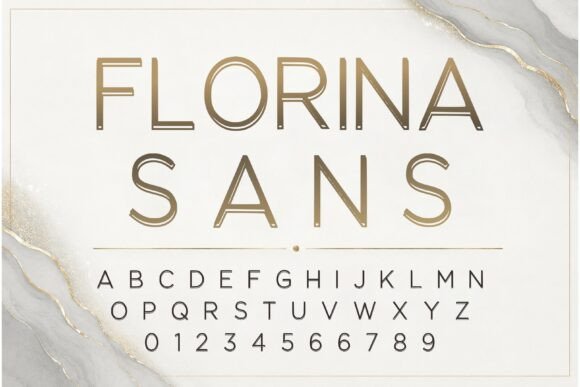
Florina Sans: A Display Font That Elevates Digital Branding
Last week, I was finalizing the hero section of a boutique coaching website—clean layout, soft gradient background, and a single powerful headline inviting visitors to “Begin Your Clarity Journey.” The default system font felt safe but forgettable. So I dropped in Florina Sans. Instantly, the tone shifted: confident, intentional, quietly luxurious—not flashy, but unmistakably considered.
That’s the quiet power of a well-chosen display font. Florina Sans isn’t built for paragraphs or navigation menus. It’s designed for moments that need presence: headlines, banners, call-to-action overlays, logo lockups, and hero statements where typography carries emotional weight alongside meaning.
Visually, Florina Sans balances Art Deco elegance with contemporary restraint. Its geometric structure gives it clarity at large sizes—think clean terminals, even stroke contrast, and subtly flared terminals on letters like C and S. But unlike many decorative display fonts, it avoids ornamentation for its own sake. There’s no excessive swash, no forced whimsy—just refined proportions, generous x-height, and spacing that breathes comfortably on screen.
In practice, I tested it across real scenarios:
- Hero section on desktop: At 64px with letter-spacing of 1.2px, Florina Sans held its shape beautifully over a subtle image overlay—no blurring, no hint of pixelation, even with light text on a textured background.
- Mobile landing page headline: Scaled down to 42px with tighter tracking (0.8px), it remained legible and impactful—not cramped, not fragile. The uppercase variant especially shone in short, bold declarations like “Your Next Chapter Starts Here.”
- CTA button on a dark mode layout: Paired with a light-weight sans serif body font (Inter, set at 16px), Florina Sans in Medium weight created clear visual hierarchy without competing for attention. Users scanned to the button faster—less cognitive load, more intention.
What stood out wasn’t just aesthetics—it was how Florina Sans reinforced brand voice *without* needing extra copy. For a wellness coach positioning herself as both grounded and aspirational, the font quietly communicated calm authority. For a small-batch ceramic studio launching an online shop, it added tactile sophistication to product banners—like the typeface itself had been hand-finished.
That said, Florina Sans shines brightest when used intentionally. It’s not a workhorse font—and shouldn’t be treated as one. I avoided using it for:
- Body text (even at 18px—it’s too stylistic for extended reading)
- Form labels or error messages (lacks the neutrality needed for utility)
- Small mobile buttons under 14px (the fine details begin to soften)
- Long navigation items (its personality overwhelms functional scanning)
Instead, I reserved it for high-impact, low-frequency moments: the main headline, section dividers (“Our Approach,” “What Clients Say”), testimonial pull-quotes in large size, and branded social media graphics exported from Figma. In each case, it acted less like text and more like a design asset—anchoring the layout while reinforcing tone.
Readability checks were straightforward but essential. On light backgrounds, the Regular and Medium weights delivered crisp contrast. Over images, I used a subtle semi-transparent overlay or a soft text shadow (1px black at 20% opacity) to ensure legibility without sacrificing elegance. On dark mode, I switched to the Light weight—it retained airiness without washing out. And crucially, I confirmed all webfont files loaded quickly: WOFF2 only, under 45KB total for the core weights (Light, Regular, Medium, Bold), with no render-blocking delays in Lighthouse audits.
Font pairing felt intuitive. Florina Sans pairs naturally with humanist sans serifs like Inter, Poppins, or Manrope for body copy—fonts that share its openness and warmth but prioritize function. For a more editorial or luxury-leaning site (say, a digital magazine or independent book publisher), I experimented with a warm, low-contrast serif like Cormorant Garamond for bylines and pull-quotes—creating a thoughtful rhythm between voice and vessel.
I also reviewed what’s included before committing: four weights (Light to Bold), true italics (not slanted), standard Latin multilingual support (including accented characters for French, Spanish, and German), and OpenType features like ligatures and discretionary numerals. No variable axis—but the discrete weights gave me precise control over hierarchy without overcomplicating the stack. Licensing was clearly stated for web use, including unlimited domains and commercial projects—no surprises when handing off to a client or publishing a SaaS landing page.
One unexpected win? How well Florina Sans translated into non-web contexts. When the client later needed Instagram story templates and email headers, the same font file rendered cleanly across Canva, Figma, and Mailchimp—making the brand feel cohesive whether someone scrolled past a post or opened a nurture sequence.
If you’re refining a portfolio homepage, launching a course sales page, designing a boutique online store, or building a campaign landing page where first impressions carry weight—Florina Sans is worth testing not just for how it looks, but for how it makes your content feel: deliberate, elevated, and unmistakably yours.